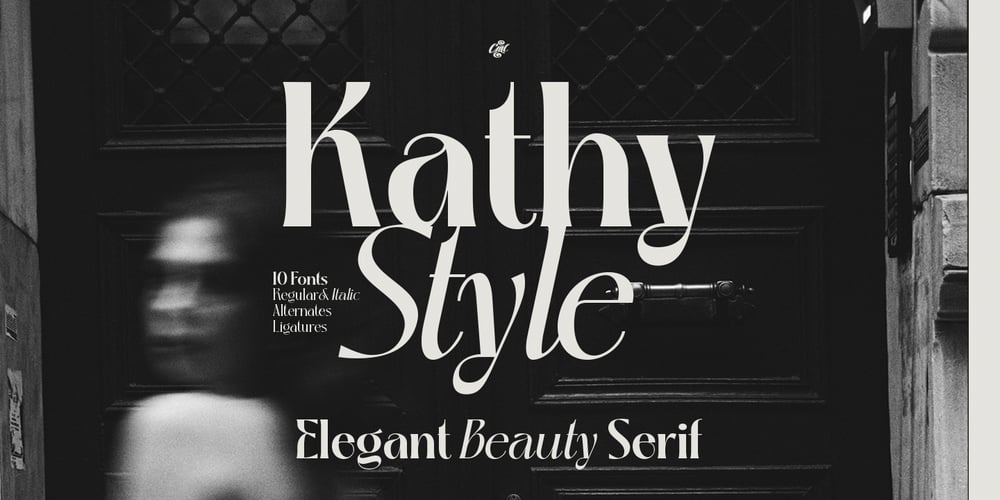
Kathy Style
Kathy Style font
Kathy Style Font Family was designed by Kadek Mahardika and published by Creativemedialab. Kathy Style contains 10 styles and family package options. Kathy Style is a modern, elegant, classic typeface with a timeless look. It comes with five weights with matching italic.Kathy Style has many alternative characters that can be adjusted to create a pretty heading, title or logotype.Kathy Style is perfect for fashion-related concepts, Luxury and Elegant design, Classy or high-end branding, logo, and many more. Try to combine the regular and italic styles for a modern and elegant look.